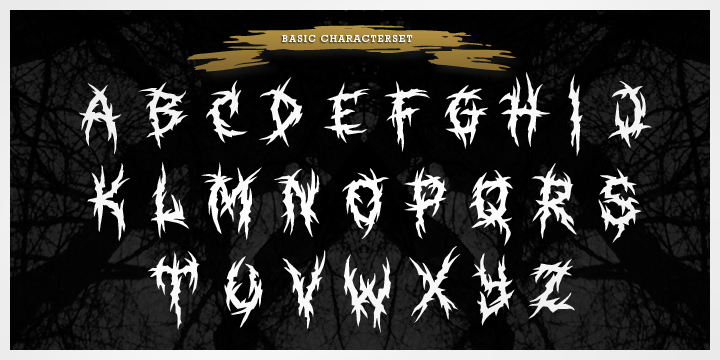
This extreme typeface is perfect for metal music bands, horror movie titles, gothic entertainment venues, extreme sports branding, heavy metal merchandise, dark gaming interfaces, apocalyptic fiction covers, underground music labels, intense workout programs, extreme challenge events, hardcore fashion brands, and intense entertainment campaigns. The font's aggressive design makes it ideal for projects that celebrate intensity, rebellion, and the uncompromising power of extreme expression that pushes boundaries and challenges conventional limits.
XXII Total Death Font is exciting because it embodies extreme intensity and rebellious power through its aggressive letterforms and hardcore character structure. The font's sharp edges and commanding proportions create an atmosphere of rebellion, strength, and uncompromising attitude, making it perfect for brands that want to convey intensity, authenticity, and the bold spirit of underground culture. Its extreme personality ensures instant impact while maintaining excellent readability across various hardcore applications.
The XXII Total Death Font family includes multiple extreme variations: Light Hardcore, Regular Metal, Medium Brutal, Bold Extreme, and Black Ultimate weights, each available in standard and distressed versions. Special extreme editions feature sharp alternates, metal ornaments, and intense symbols that enhance the font's hardcore appeal, providing designers with comprehensive tools for creating authentic extreme communications.
Unleash extreme design power with XXII Total Death Font Free Download – a typeface that represents uncompromising intensity and rebellious spirit. Whether you're developing metal band branding, extreme sports materials, or hardcore entertainment campaigns, this font delivers the aggressive presence and extreme authenticity your projects need while ensuring exceptional performance and intense impact across all extreme and hardcore applications.